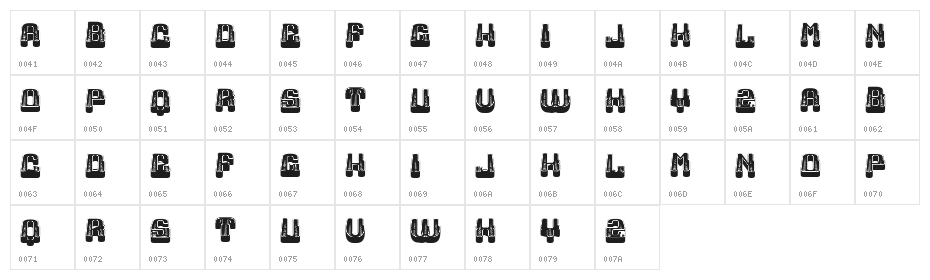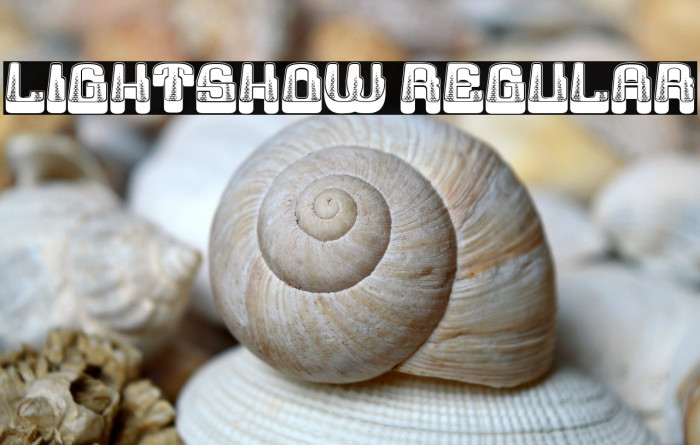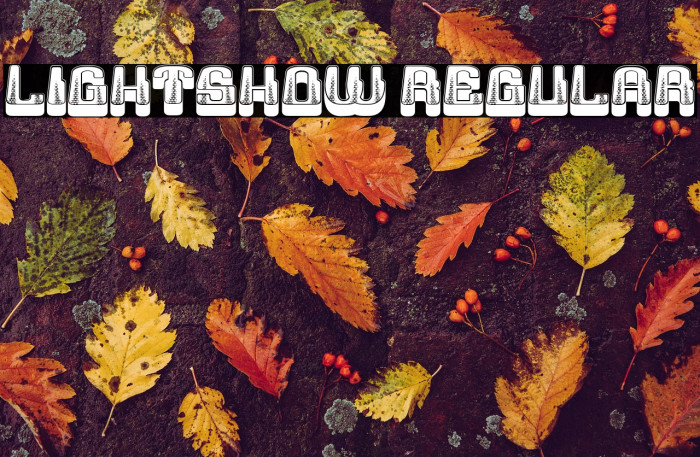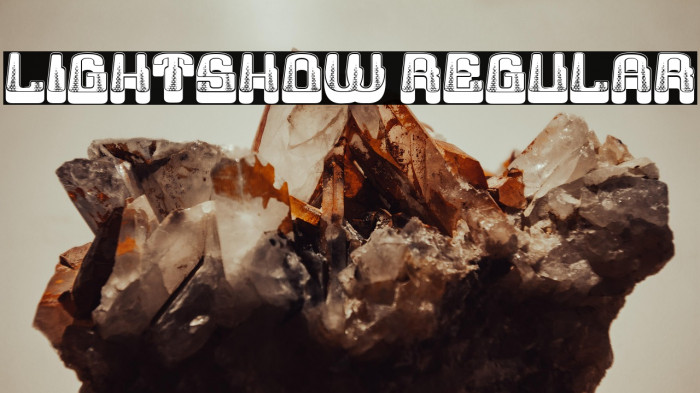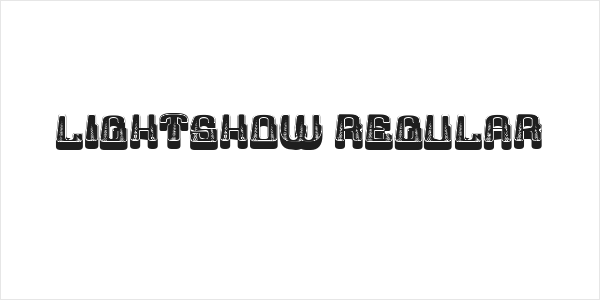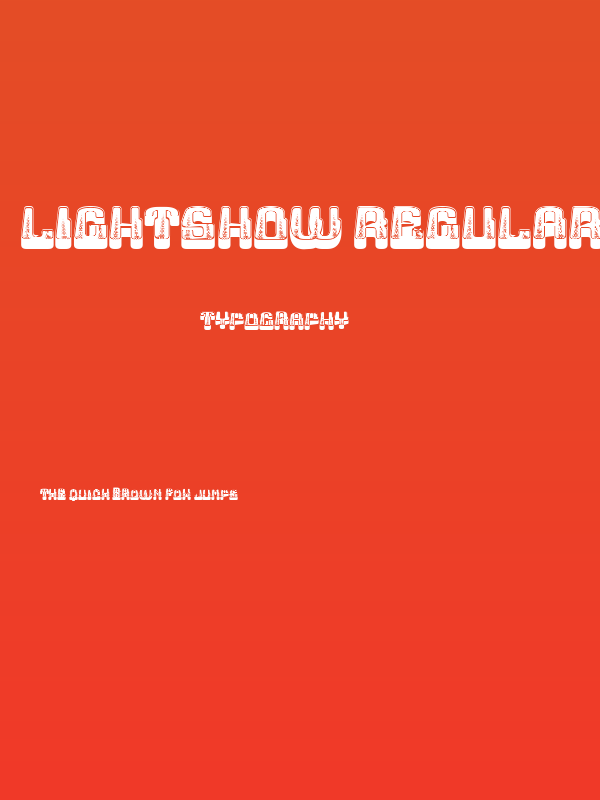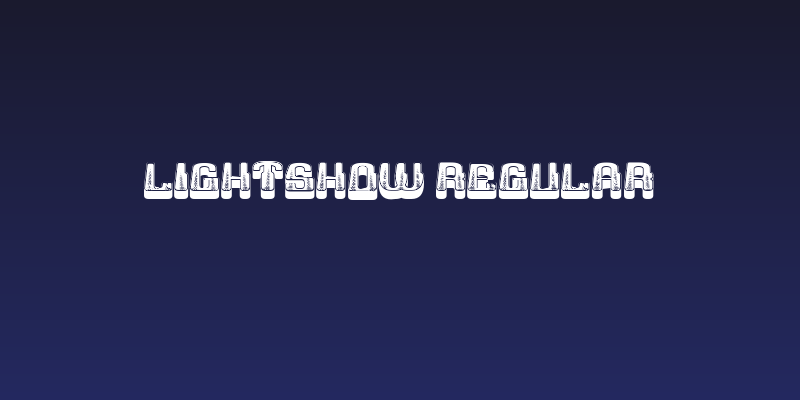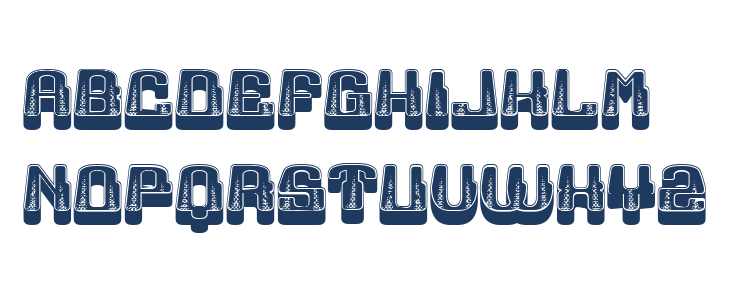
Lightshow Regular Font
Lightshow Regular Description
This font features a bold, decorative style with a unique textured appearance. Each character is outlined with a thick black border, giving it a three-dimensional effect. The interior of the letters is filled with a distressed, speckled pattern that adds a vintage or retro feel. The uppercase letters are uniform in height and width, creating a cohesive look across the alphabet. The font's playful and eye-catching design makes it suitable for creative and artistic projects. Its distinct style is reminiscent of marquee lights or vintage signage, making it stand out in any design.
| Overall Style | Vintage |
| Proposed Projects | Ideal for posters, signage, event invitations, and branding that requires a bold, vintage touch. |